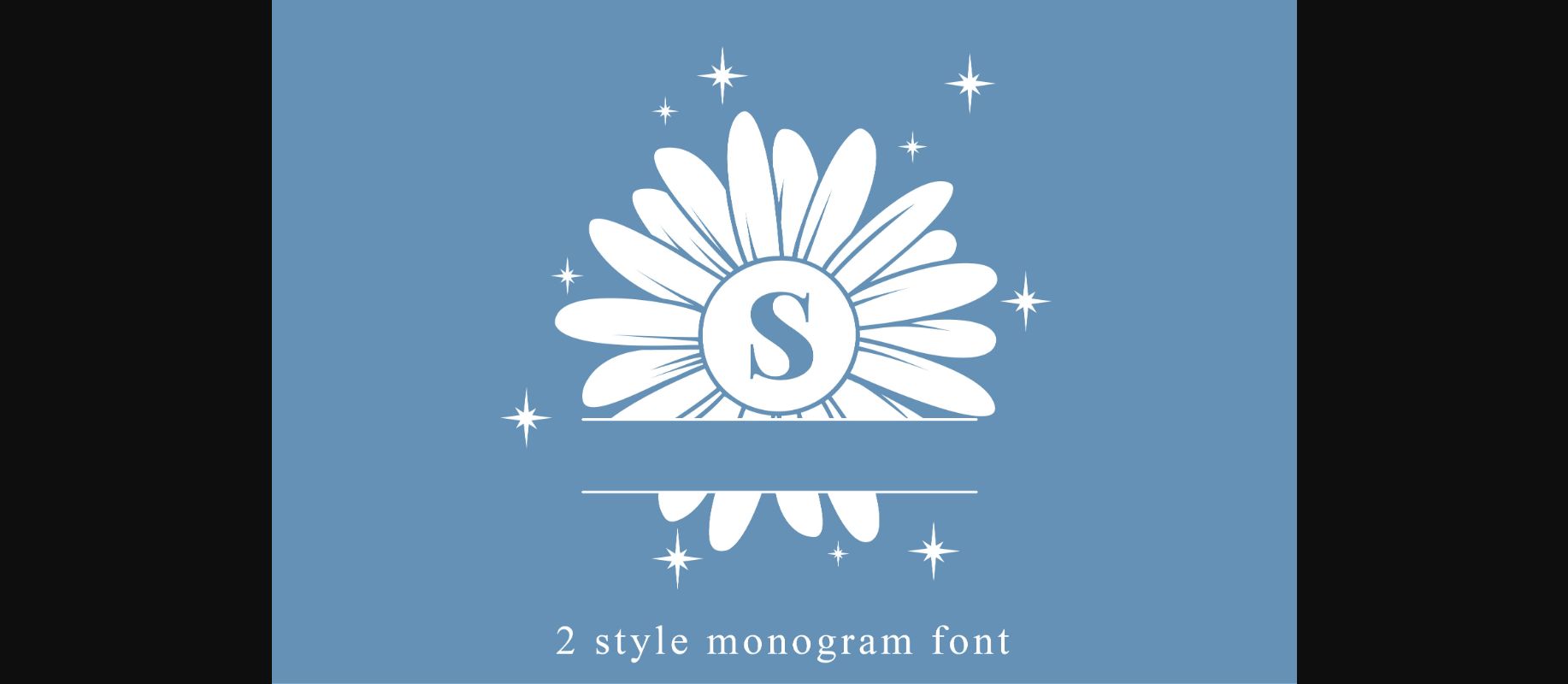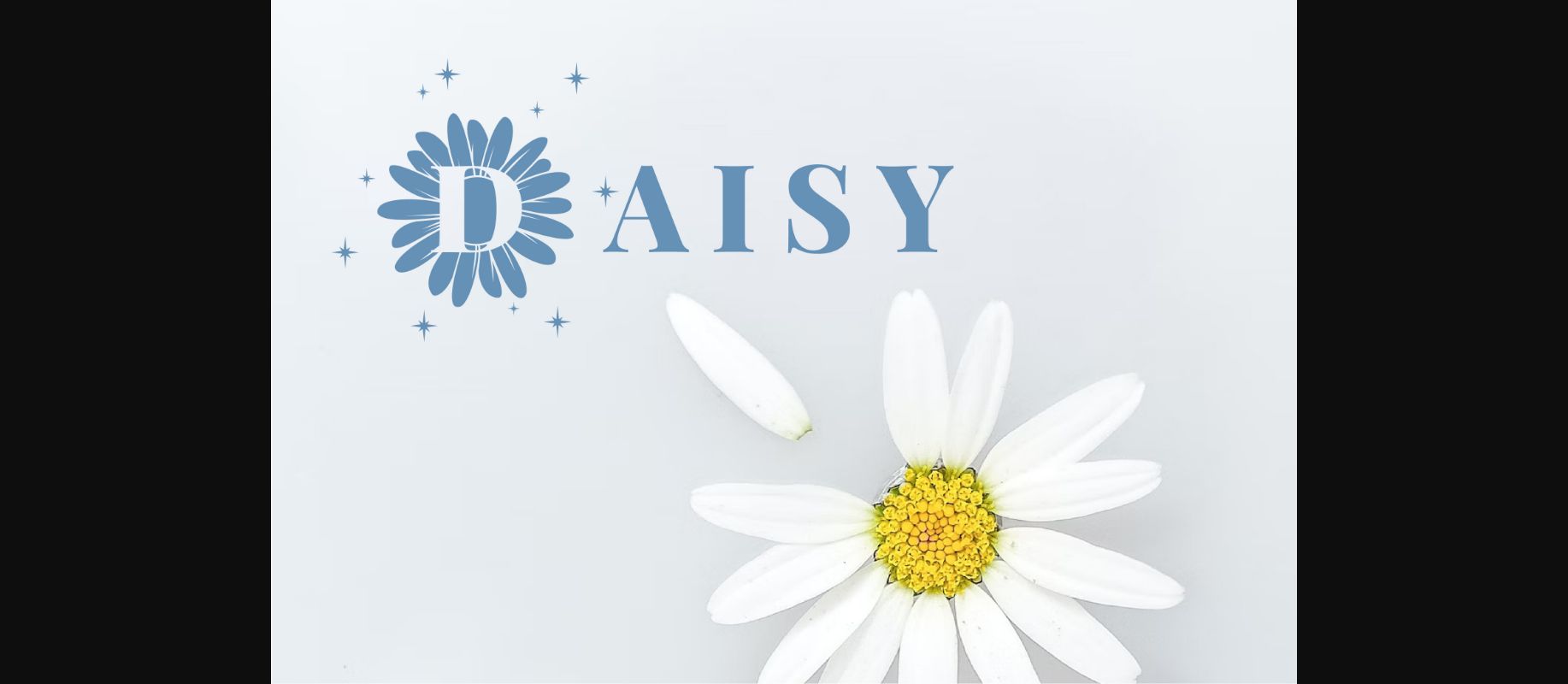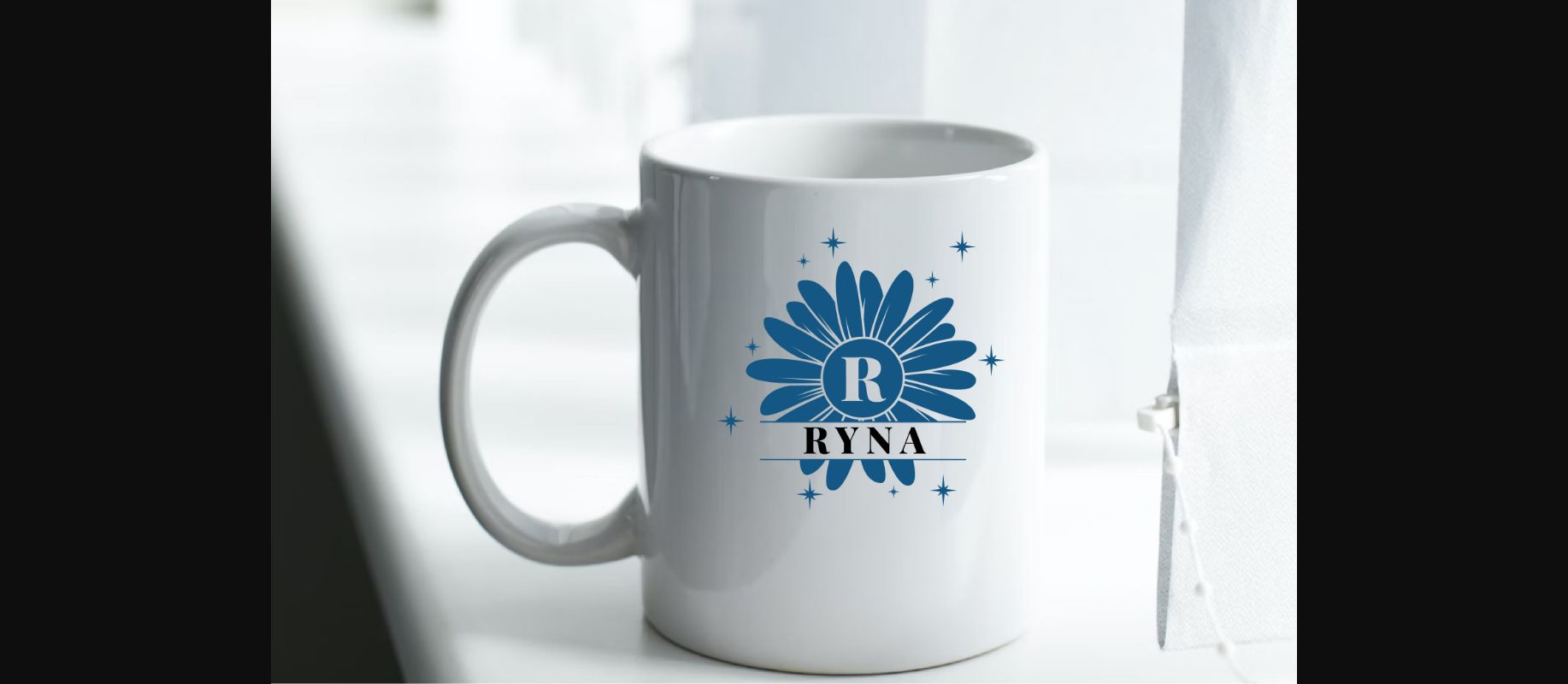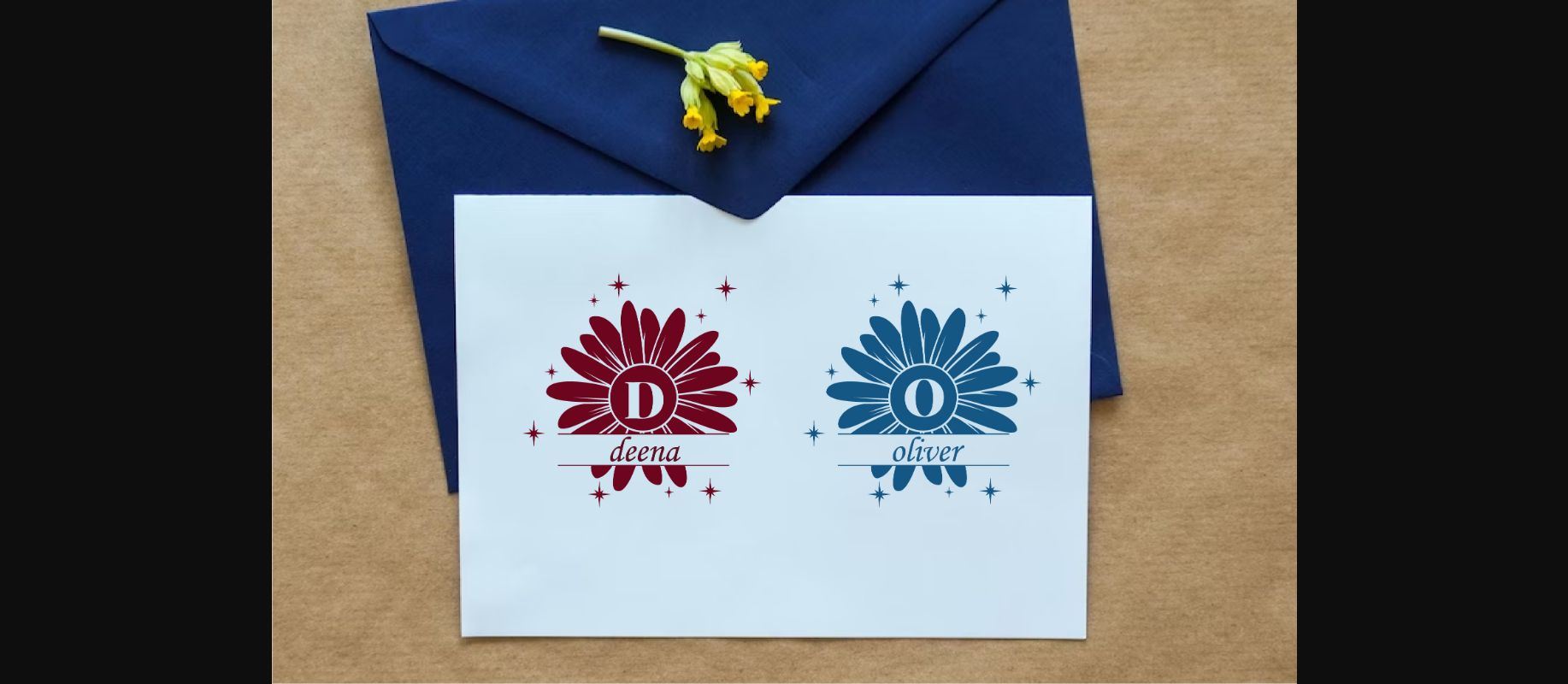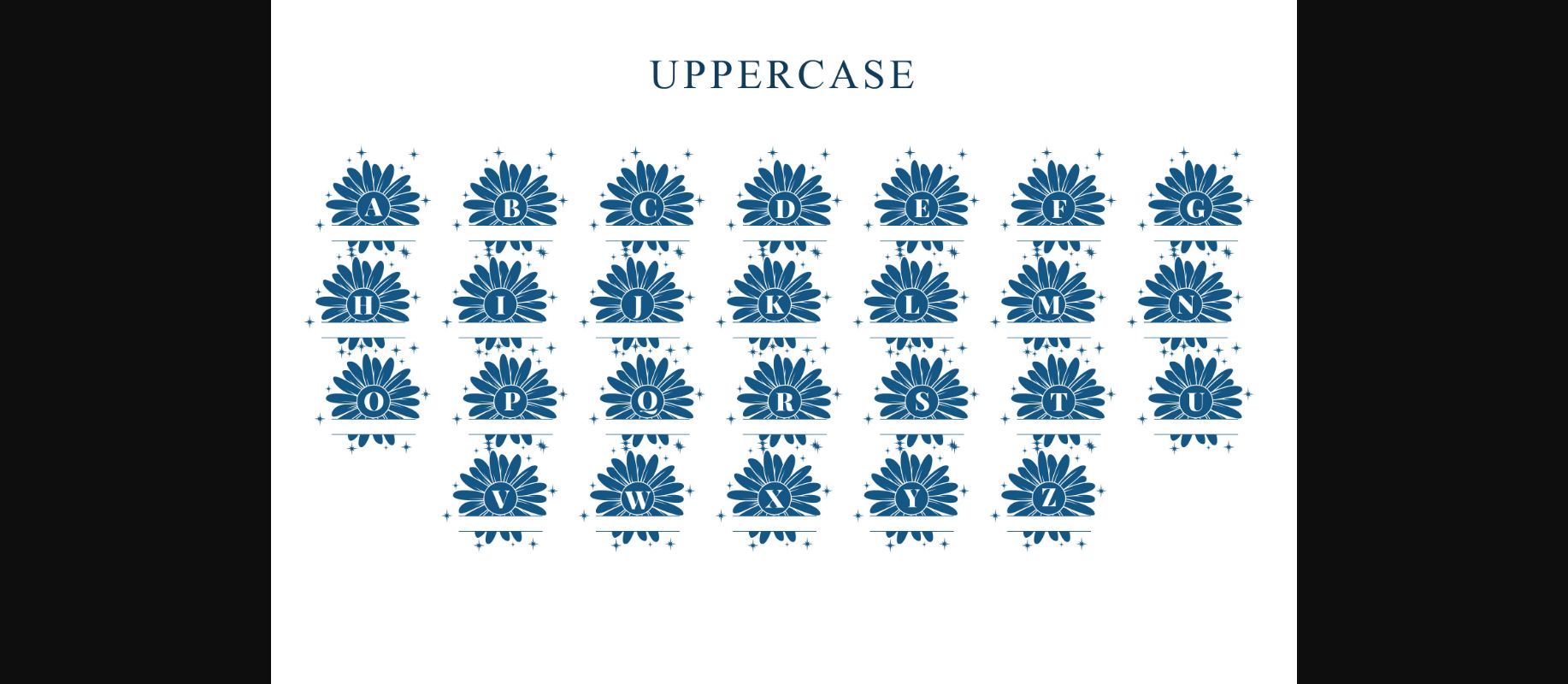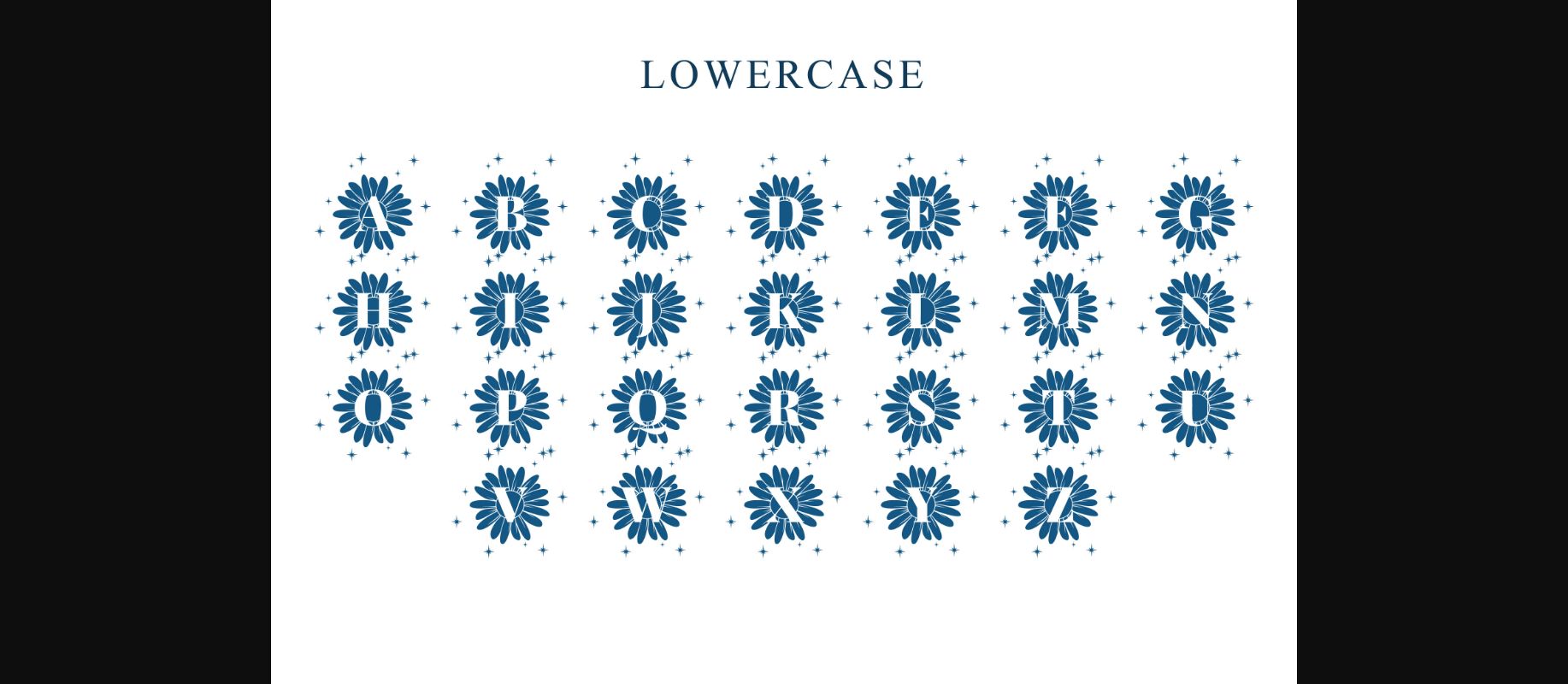
Sparkling Daisy Monogram Font
About Sparkling Daisy Monogram Font
Sparkling Daisy Monogram is a sweet decorative font. Fall in love with its authentic feel and use it to create gorgeous wedding invitations, beautiful stationary art, eye-catching social media posts, and cute greeting cards.